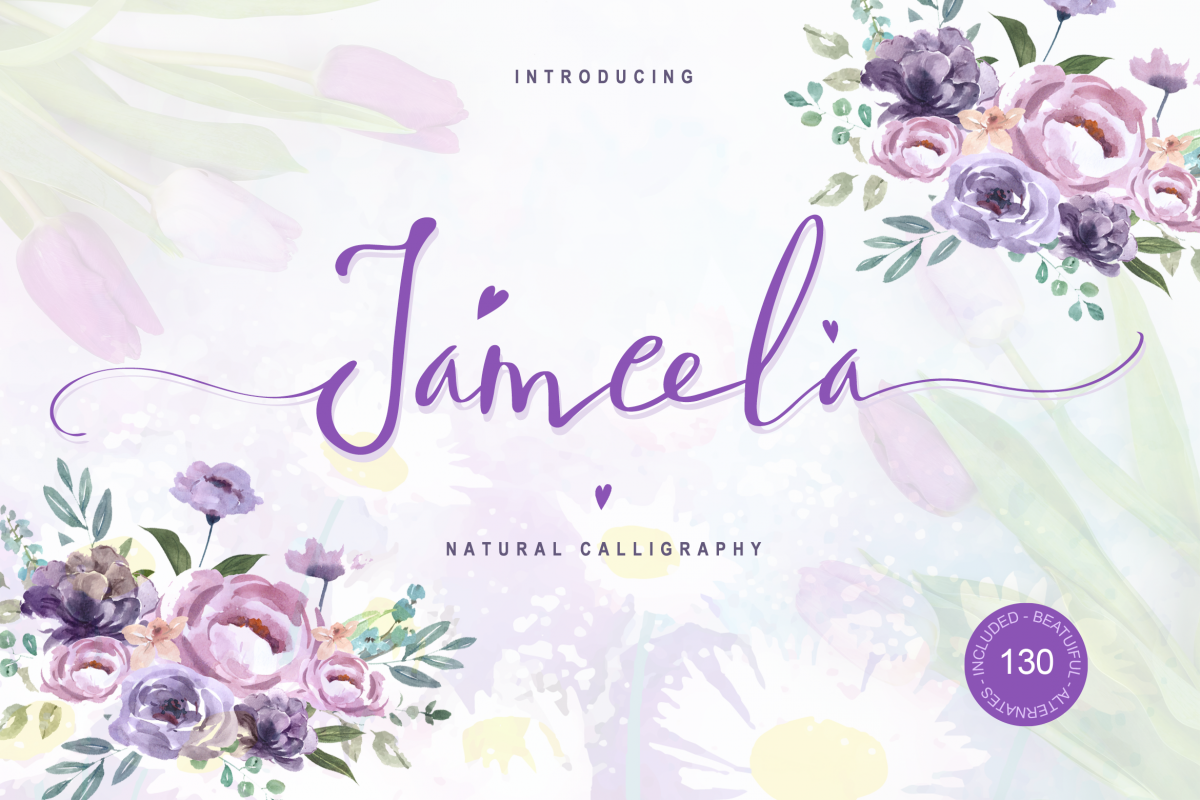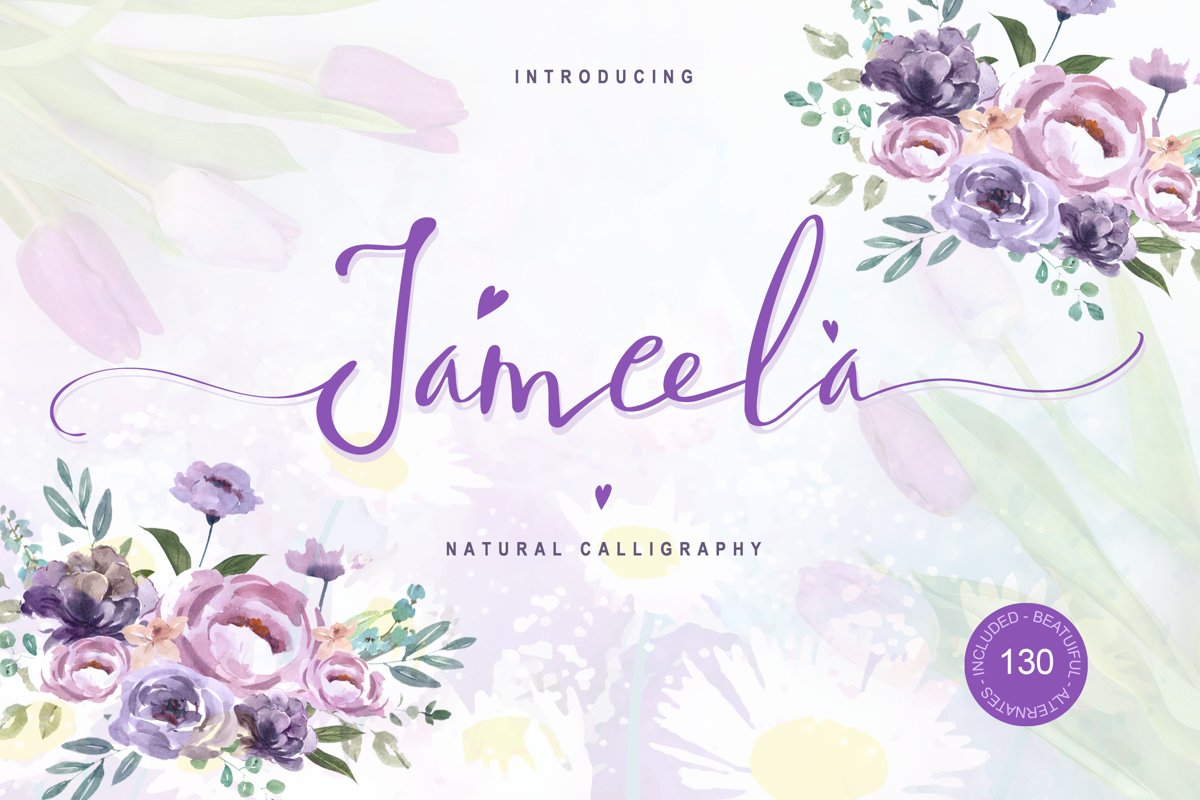
Jameela - Natural and Beautiful Script Font
Jameela
It is beautifully crafted with passion and patient of handwriting. Gorgeously digitized into a form  of FONT that will boost the design of yours. Suitable for wedding invitation, beautiful quotes, branding logo also as a signature. This font come with additional 130 plus of alternate and swashes. Not to forgot few beautiful ligature that enhance the beauty of your design.